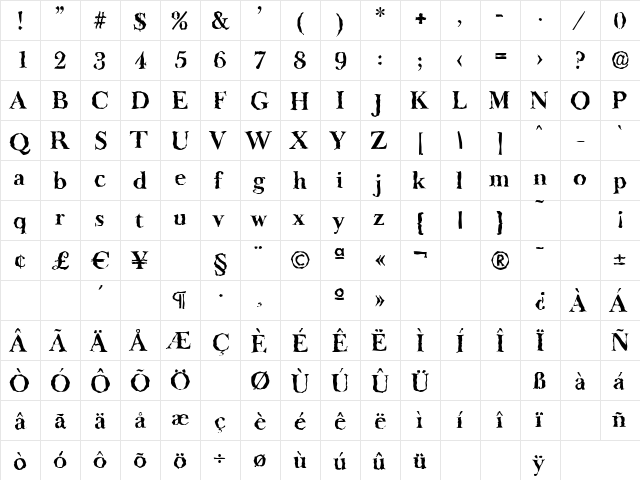
BaskerOldRandom Bold
Design Context for BaskerOldRandom Typeface
BaskerOldRandom takes a measured approach to typography — its balanced proportions and neutral character make it a reliable workhorse for both digital and print work. Its bold stroke weight gives it real presence on the page.